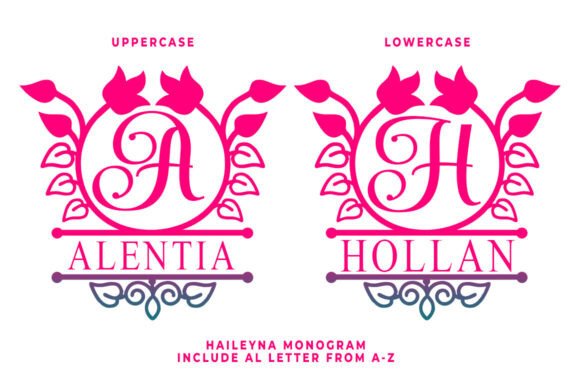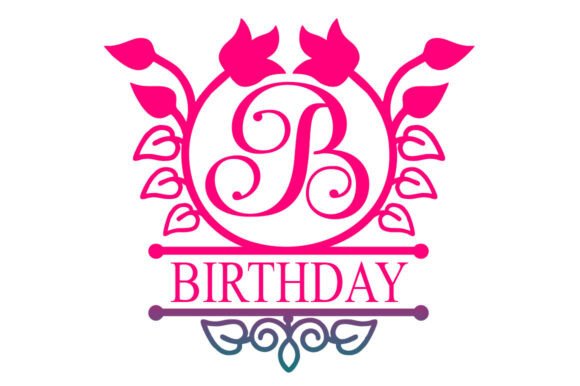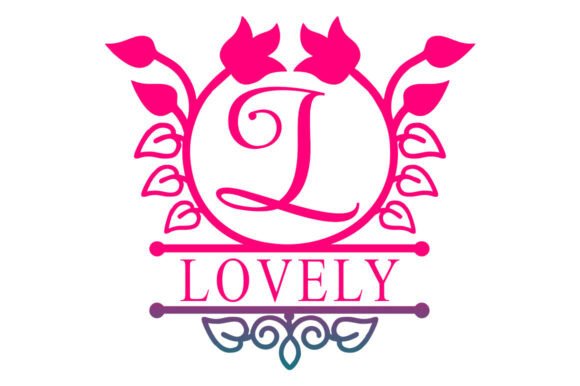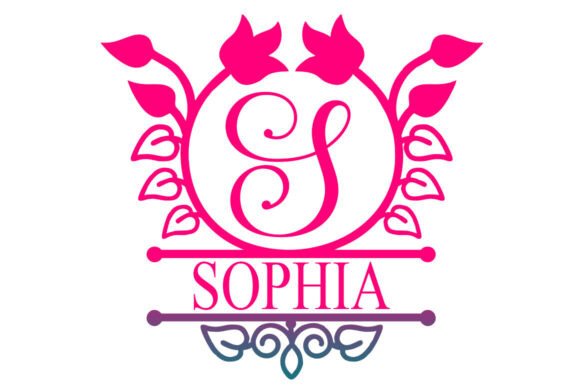
Introduction to Haileyna Monogram Font
Introducing Haileyna Monogram – the epitome of elegance expressed through typography.
Its graceful curves and intricate ornaments infuse a touch of charm, resonating with a simply authentic vibe Set your designs apart with this charismatic font, carefully crafted to make wedding invitations radiate a timeless romance.
Key Features of Haileyna Monogram Font
Why Choose Haileyna Monogram Font?
Haileyna Monogram Font offers exceptional quality and versatility, making it a valuable addition to your design toolkit. Whether you’re creating for personal projects or commercial use, Haileyna Monogram Font delivers professional results.